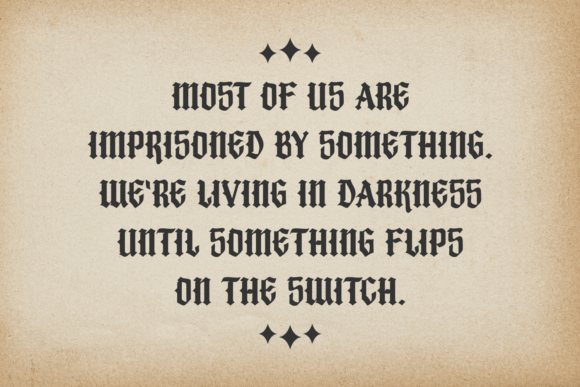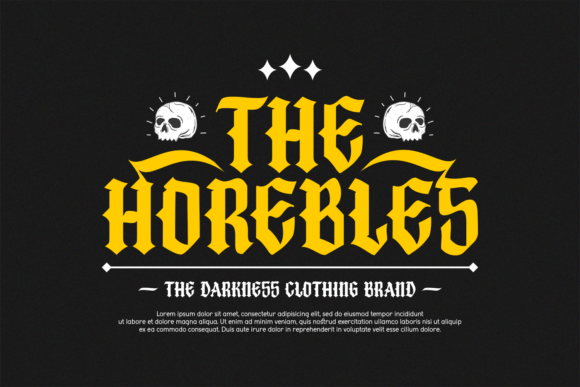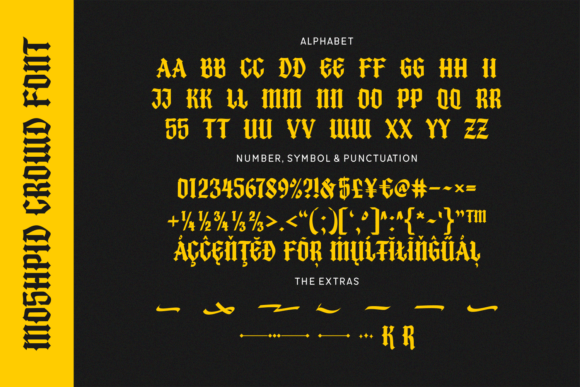
Introduction to Moshpid Crowd Font
Moshpid Crowd is a striking blackletter typeface designed for maximum impact.
With its sharp, angular forms and bold presence, this font is perfect for music posters, album covers, and edgy branding that needs to convey a sense of rebellion and attitude The high-contrast yellow against the dark background adds an electrifying energy, making it a standout choice for hardcore, punk, and metal-themed projects.
Key Features of Moshpid Crowd Font
Why Choose Moshpid Crowd Font?
Moshpid Crowd Font offers exceptional quality and versatility, making it a valuable addition to your design toolkit. Whether you’re creating for personal projects or commercial use, Moshpid Crowd Font delivers professional results.